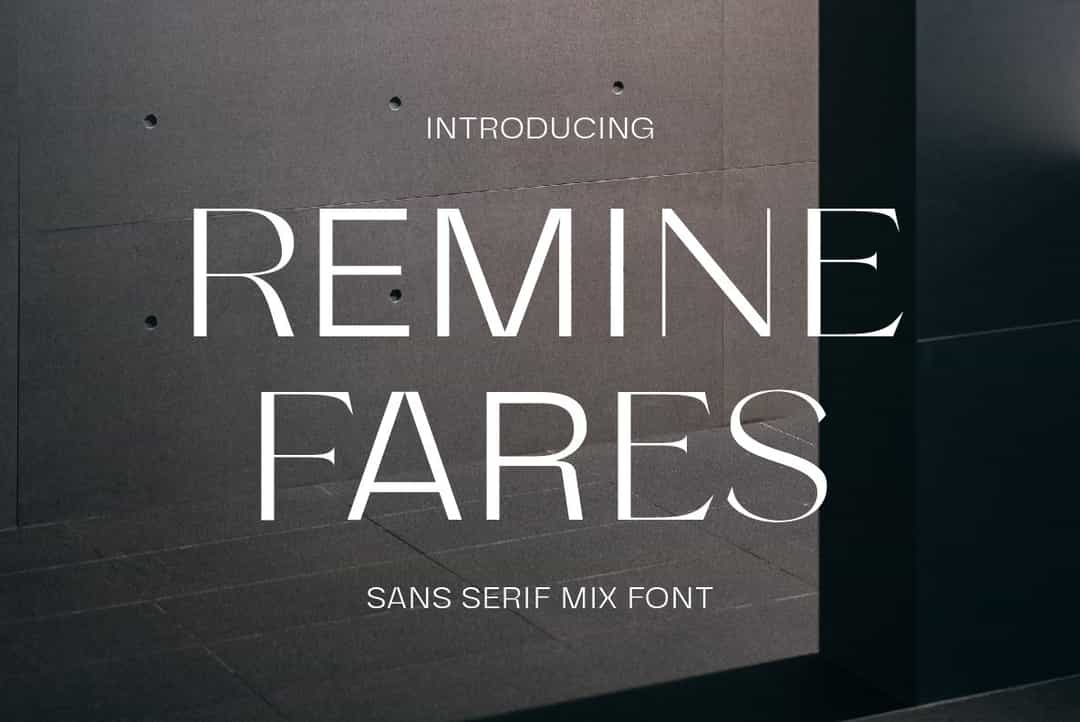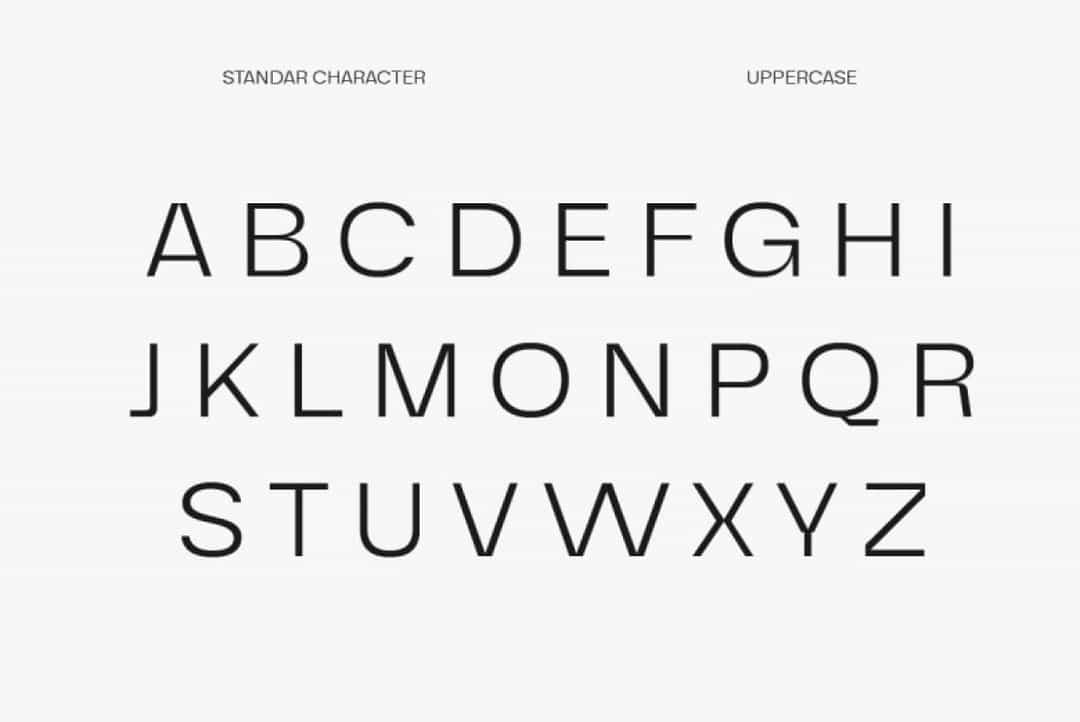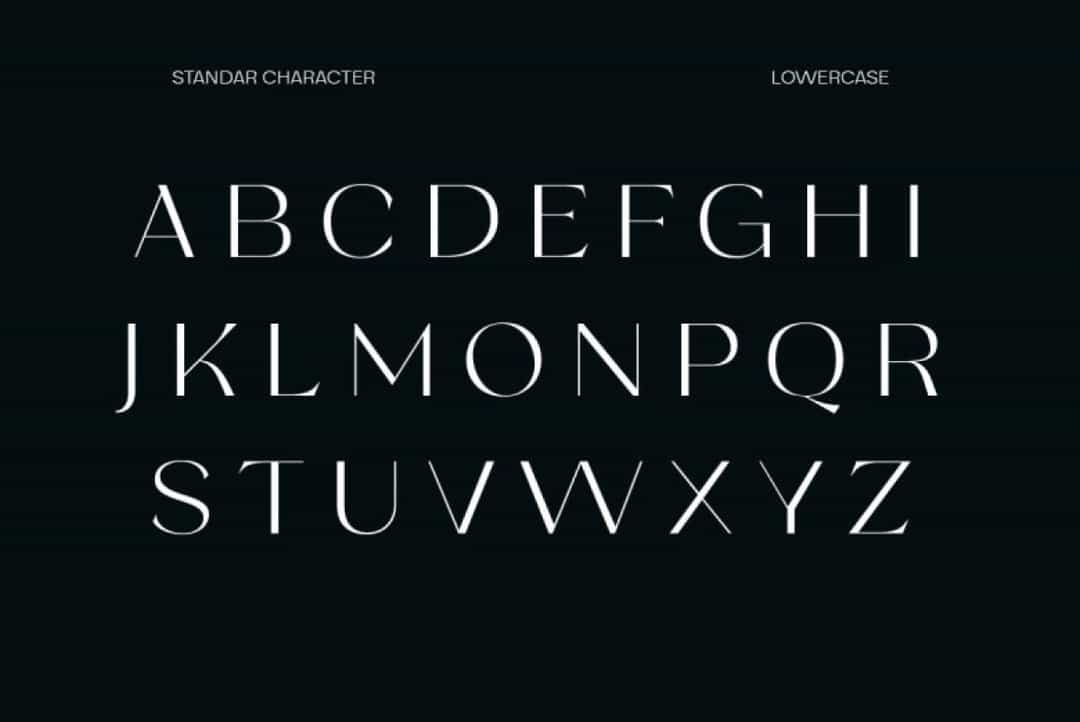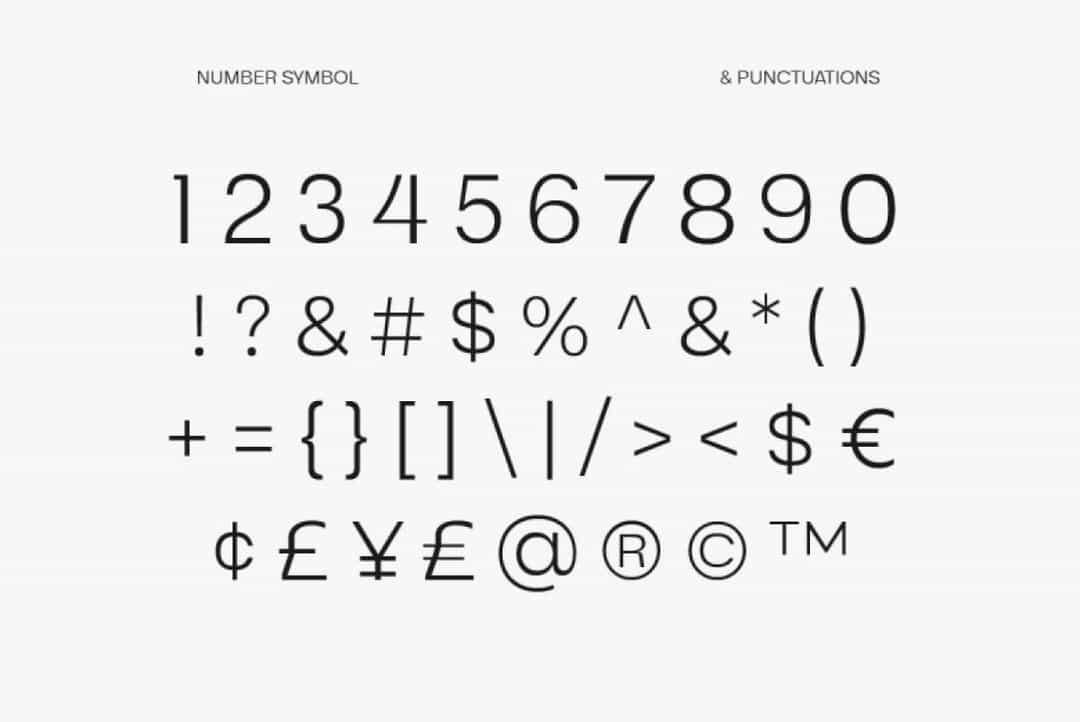
Remine Fares is an innovative sans serif mix font, blending together two distinctive styles – serif and sans serif – into one beautiful font that allows users to express themselves freely while designing attractive styles. By combining both styles into a single font, this font offers limitless possibilities of self-expression and creating attractive styles.